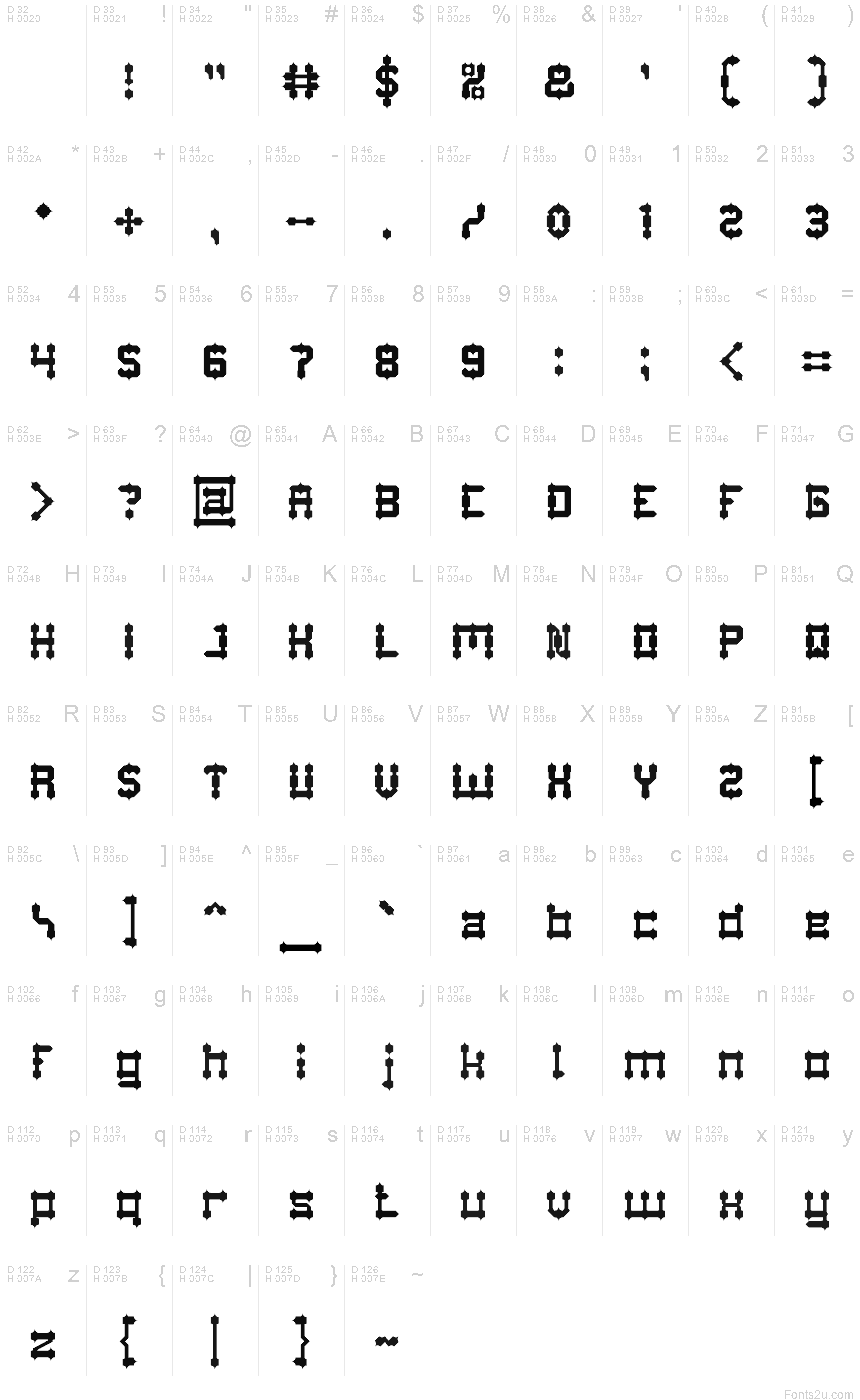
Drako Heart by Weknow is a free modern Gothic display font with broad, imposing letters and an unusually squared construction. Deep notches, clipped corners, and pointed outer strokes turn familiar blackletter forms into something closer to carved signage or heavy metal lettering.
A concert poster is its strongest setting, especially for metal, industrial, or dark electronic acts. The same hard-edged silhouette suits album packaging, gaming graphics, and branded merchandise. In publishing, it can shape a forceful cover line for stories about underground music, horror, or contemporary Gothic culture, with the repeated cutouts acting almost like a border pattern across the lettering.
The font includes lowercase letters, symbols, numbers, punctuation, an italic style, and an inverse style.